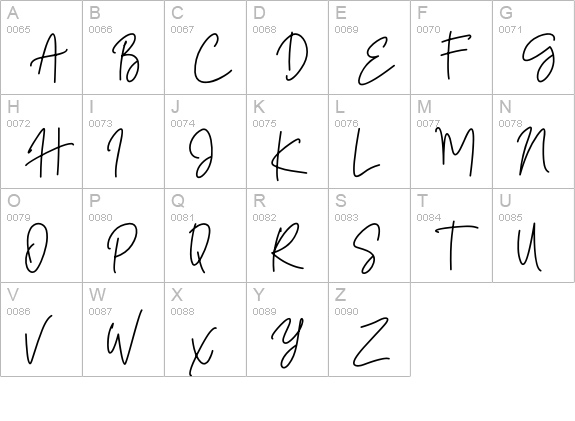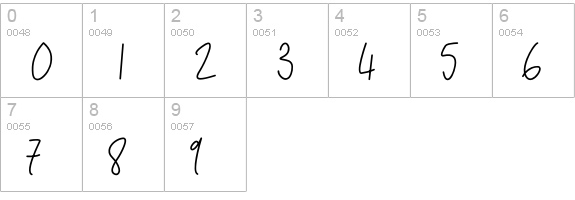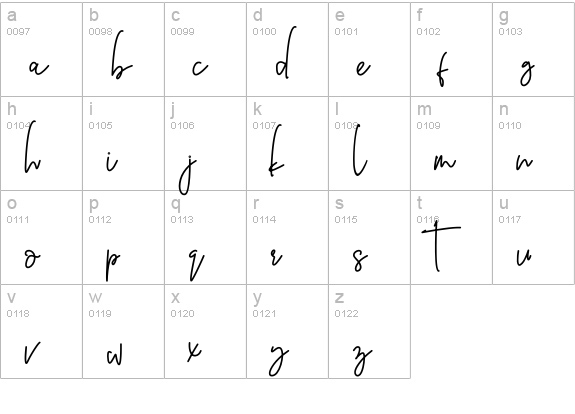
Barthilda Font Details
Barthilda is a free for personal use font in the Script > Calligraphy category, designed by Fana Studio. It has been downloaded 553 times and is available for Windows, Mac and Linux.
Barthilda font is a charming and elegant typeface that exudes sophistication and style. With its graceful curves and fine details, Barthilda font is perfect for adding a touch of class to any project. This versatile font is ideal for a wide range of design applications, from invitations and wedding stationery to branding and packaging.